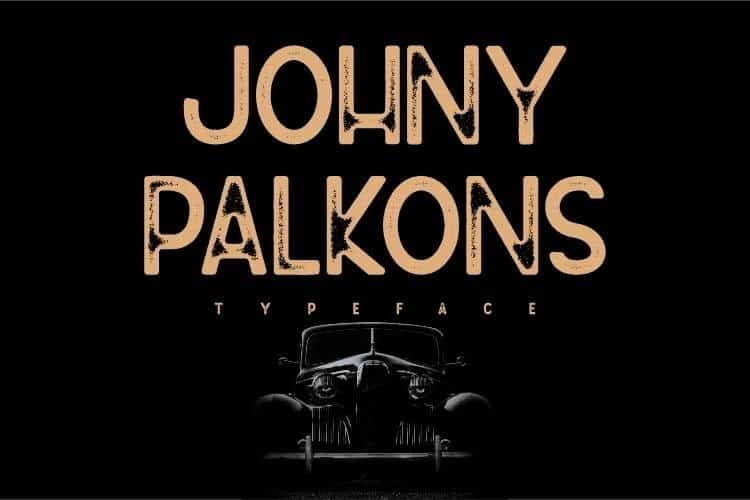
Johny Palkons Font
Johny Palkons Display Font is a vintage sans serif font inspired by the old style of letters used for signs in the 60s era. Born with the old spirit and evoking new styles from the past. Suitable for logotype designs, posters, merchandise , social media posts, packaging, landing pages, advertisements etc. See some of the previews above for reference.